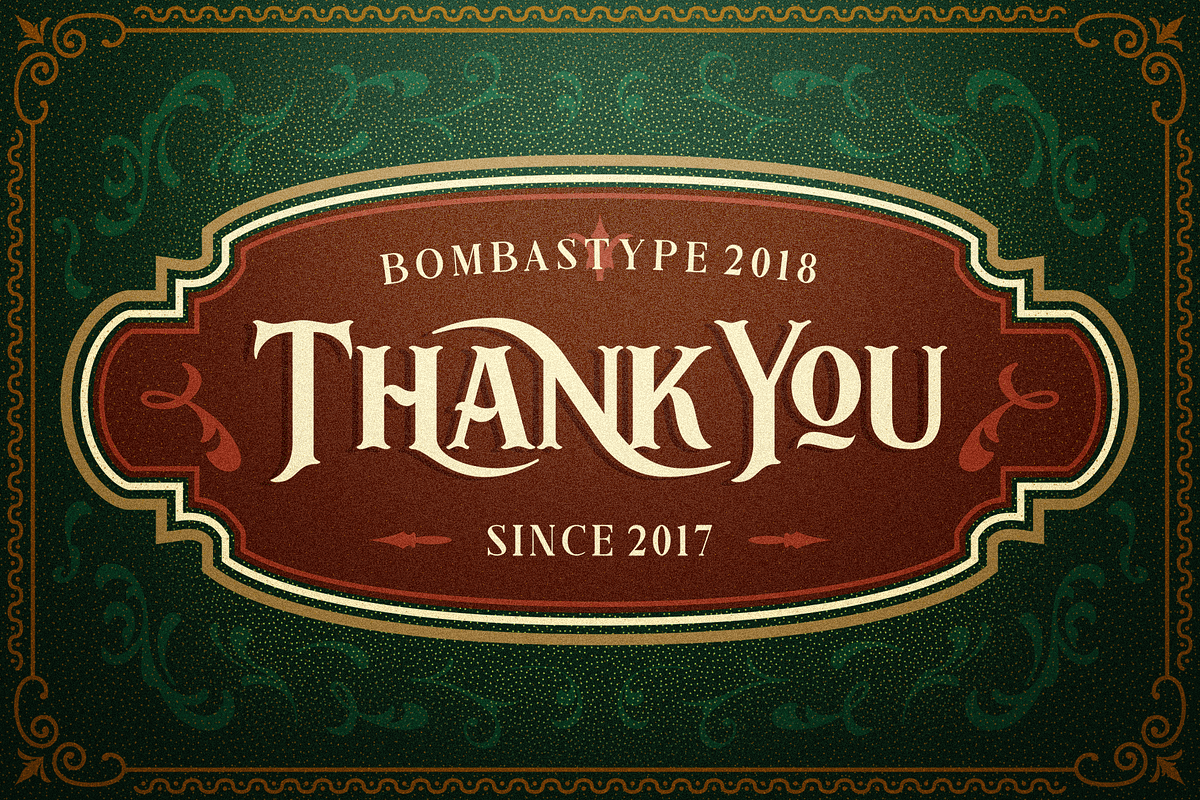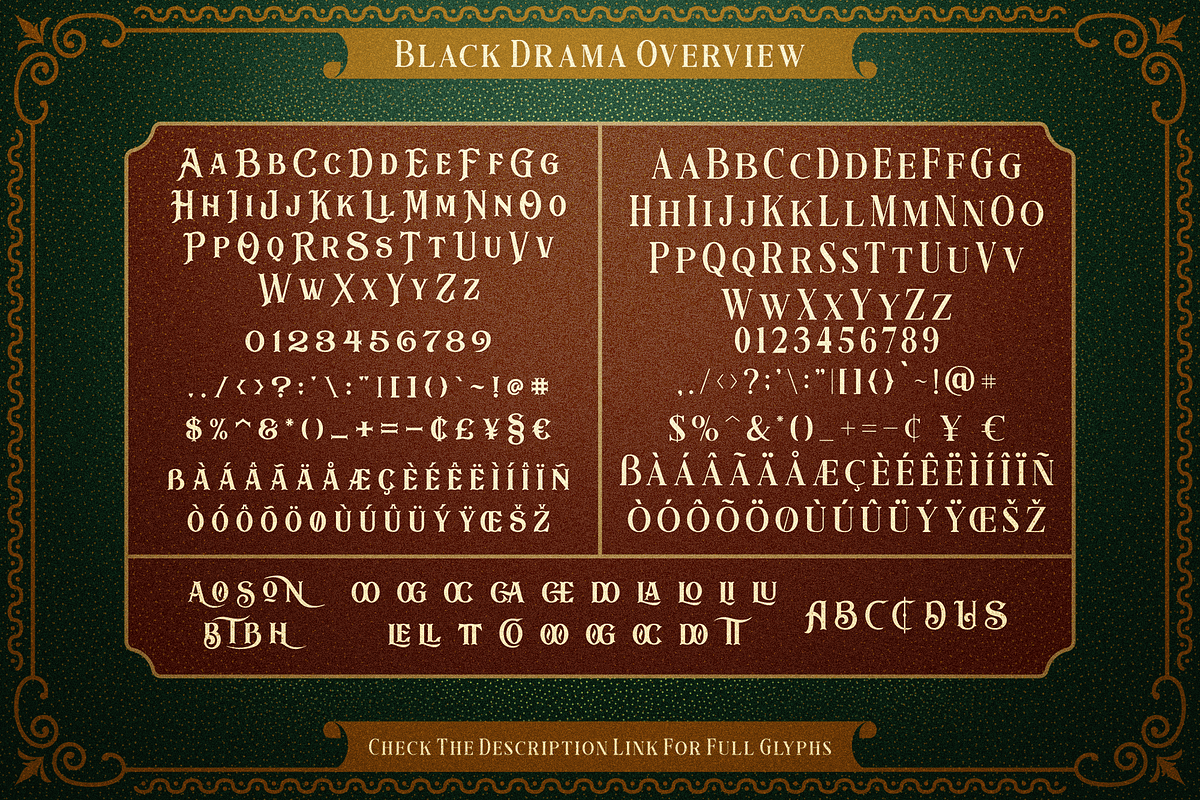
Black Drama Duo + Extras
BLACK DRAMA - FONT COMBINATION
A Beautiful and Elegant font combination. It's contains 2 display serif fonts with clean & rough style, regular & slant version for both of them. The main font is a display serif with flourish shape element. It also includes many alternates characters, ligatures, and discretionary ligatures. The second font is an elegant clean serif, with frames, floral element and illustrations as a beautiful combination. This font combination is perfect for your many design projects. Like Flyer, Logo Design, Badge, Packaging, Invitation and more.
MULTILINGUAL ACCENT